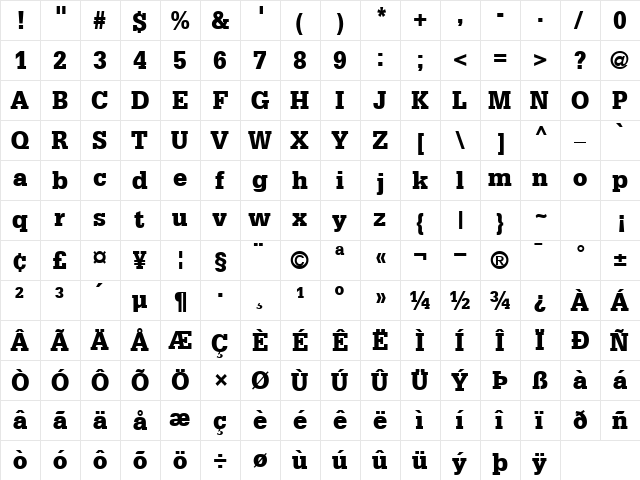
InstallationBlackSSK Regular
Design Context for InstallationBlackSSK Typeface
InstallationBlackSSK takes a measured approach to typography — its balanced proportions and neutral character make it a reliable workhorse for both digital and print work.